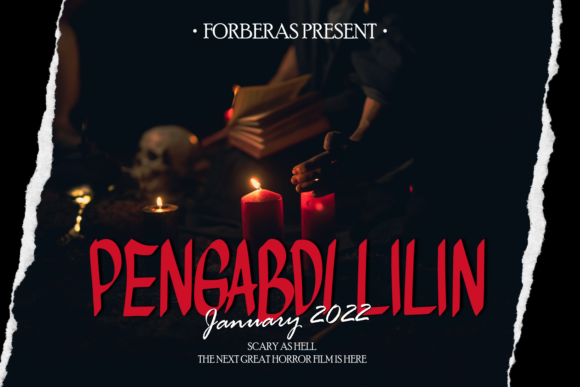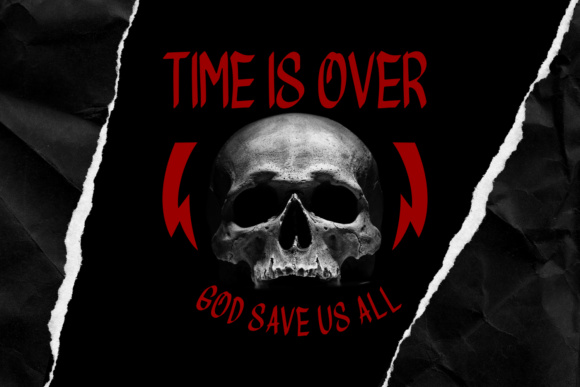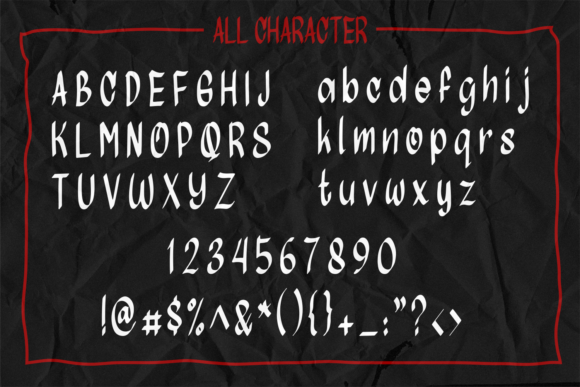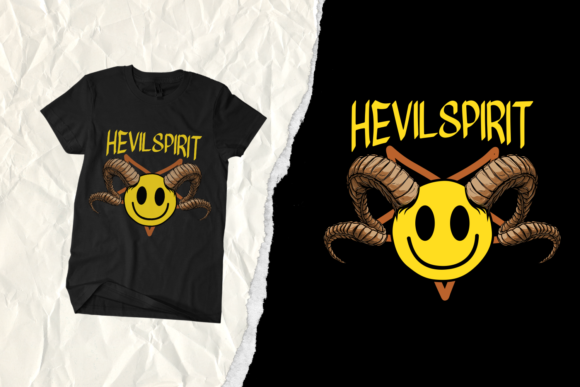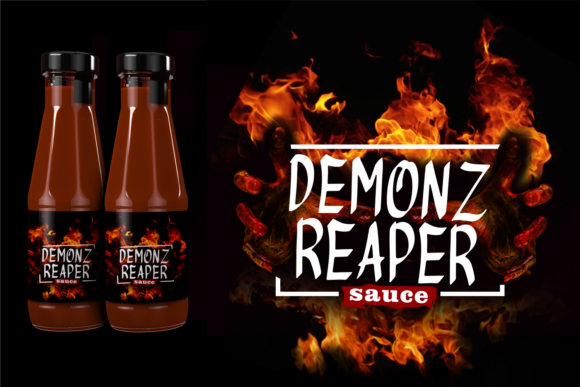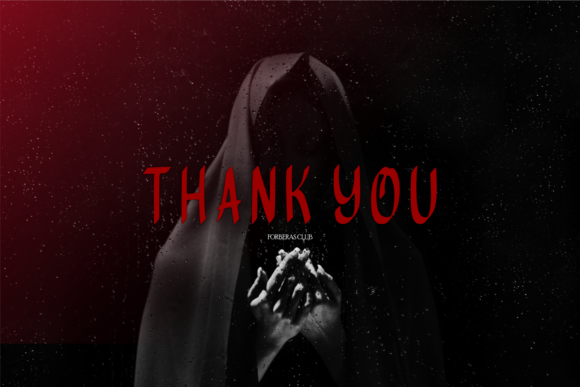
Unleash Your Creativity with Ghost Scepters Font
Are you tired of using the same old fonts in your designs? Look no further than Ghost Scepters Font, a cool and interestingly designed display font that’s sure to take your creative projects to the next level. With its natural and unique style, Ghost Scepters is incredibly fitting to a large pool of designs, and the only limit is your imagination!
What is Ghost Scepters Font?
Ghost Scepters Font is a display font that’s perfect for designers and crafters looking to add a touch of personality to their work. Its unique design features a natural, hand-crafted look that’s both eye-catching and distinctive. Whether you’re working on a logo, a poster, or a digital project, Ghost Scepters Font is sure to make your design stand out from the crowd.
Key Features of Ghost Scepters Font
- Unique and Natural Style: Ghost Scepters Font features a one-of-a-kind design that’s both natural and unique. Its hand-crafted look gives it a distinctive feel that’s sure to capture the attention of your audience.
- Versatility: Ghost Scepters Font is incredibly versatile, making it perfect for a wide range of designs, from logos and posters to digital projects and more.
- Easy to Read: Despite its unique design, Ghost Scepters Font is easy to read, making it perfect for use in a variety of contexts, from headings and titles to body text.
- High-Quality Design: Ghost Scepters Font is designed to the highest standards, ensuring that it looks great in any context.
Uses for Ghost Scepters Font
Ghost Scepters Font is perfect for a wide range of design projects, including:
- Logos and Branding: Ghost Scepters Font is perfect for creating unique and memorable logos that will help your brand stand out from the crowd.
- Posters and Flyers: Add a touch of personality to your posters and flyers with Ghost Scepters Font, which is sure to grab the attention of your audience.
- Digital Projects: Ghost Scepters Font is perfect for use in digital projects, from social media graphics to website headers and more.
- Crafting and Scrapbooking: Ghost Scepters Font is also perfect for crafters and scrapbookers looking to add a personal touch to their projects.
Tips for Using Ghost Scepters Font
Here are a few tips for getting the most out of Ghost Scepters Font:
- Experiment with Different Sizes: Ghost Scepters Font looks great in a variety of sizes, so don’t be afraid to experiment to find the perfect size for your project.
- Pair it with Other Fonts: Ghost Scepters Font pairs well with a variety of other fonts, so try combining it with other fonts to create a unique look.
- Use it to Create Contrast: Ghost Scepters Font is perfect for creating contrast in your designs, so try using it to draw attention to a particular element.
Ghost Scepters Font is a unique and versatile display font that’s perfect for designers and crafters looking to add a touch of personality to their work. With its natural and unique style, Ghost Scepters is incredibly fitting to a large pool of designs, and the only limit is your imagination! So why not give Ghost Scepters Font a try today and see the difference it can make in your designs?